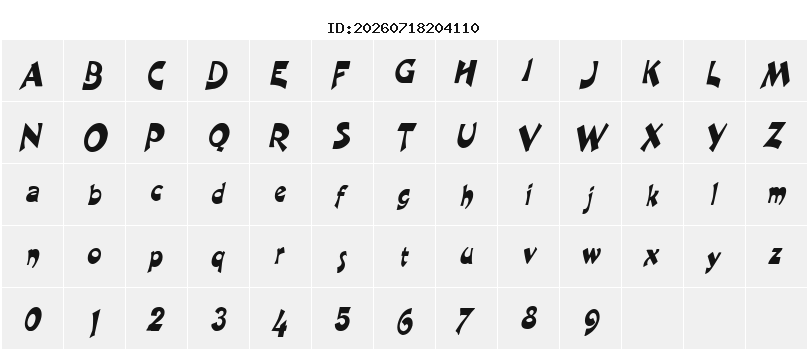
Crane-Condensed Preview
• Font Name: Crane-Condensed
• Font ID: Macromedia Fontographer 4.1 CraneCondensed Italic
• Full Font Name: Crane-Condensed Italic
• Version: 1.0/1995: 2.0/2001
• PostScript Name: Crane-CondensedItalic
About Crane-Condensed.ttf
Crane-Condensed.ttf is a modern, elegant sans-serif font designed for ultimate readability and visual harmony. Perfect for branding, headlines, web design, and print materials.